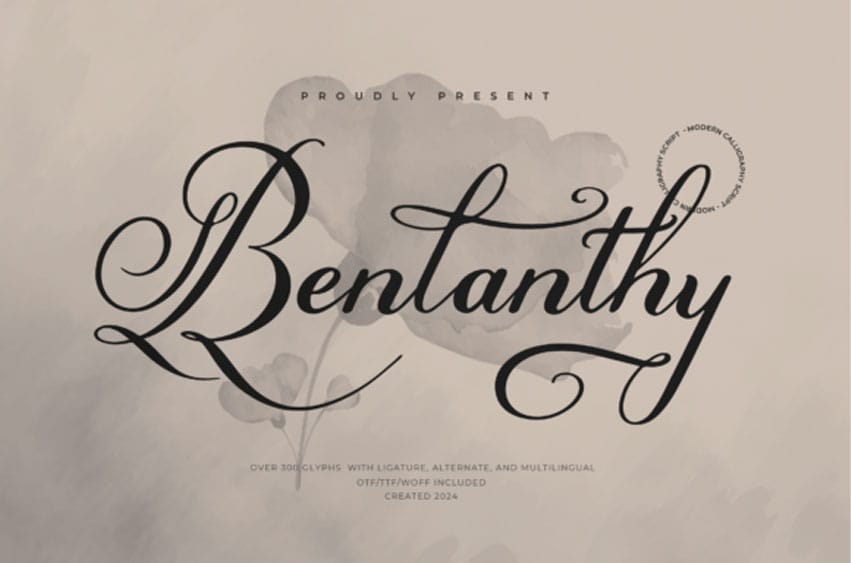
Benlanthy Font is a stylish and elegant modern calligraphy script. Its flowing, smooth letters are perfect for invitations, logos, and decorative designs.
The font has a delicate and artistic feel, making it great for creating beautiful, handwritten-style text.